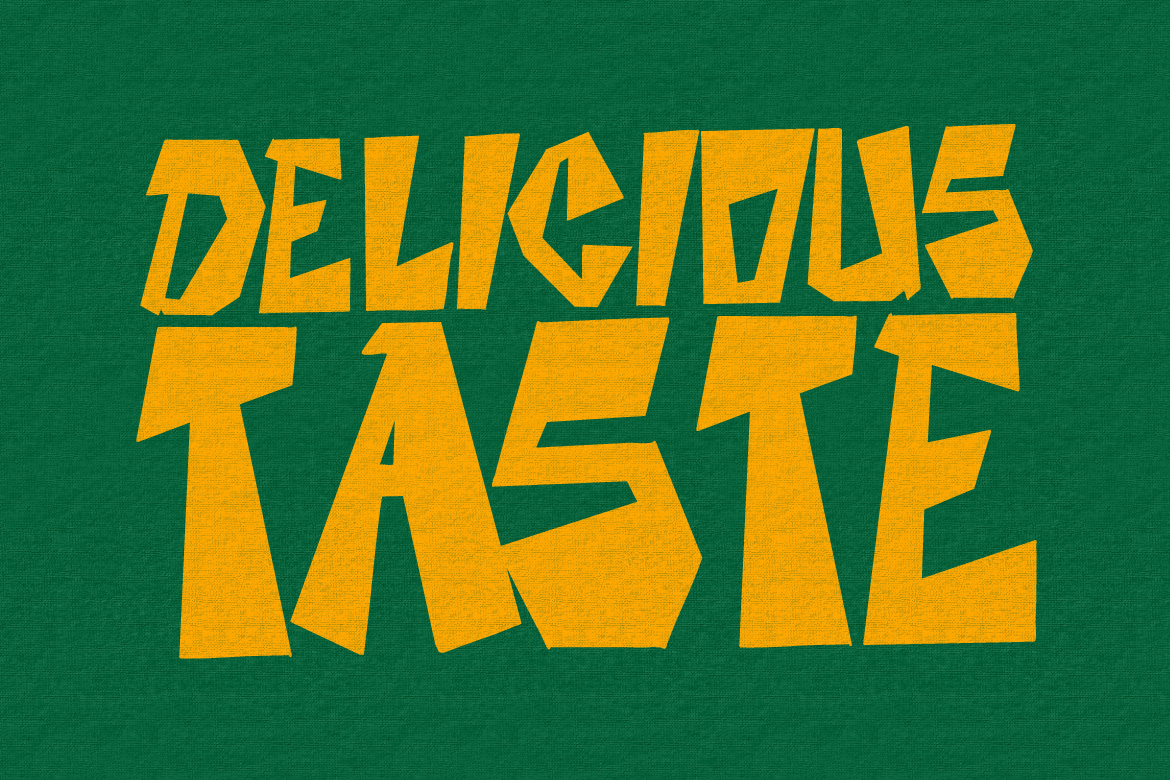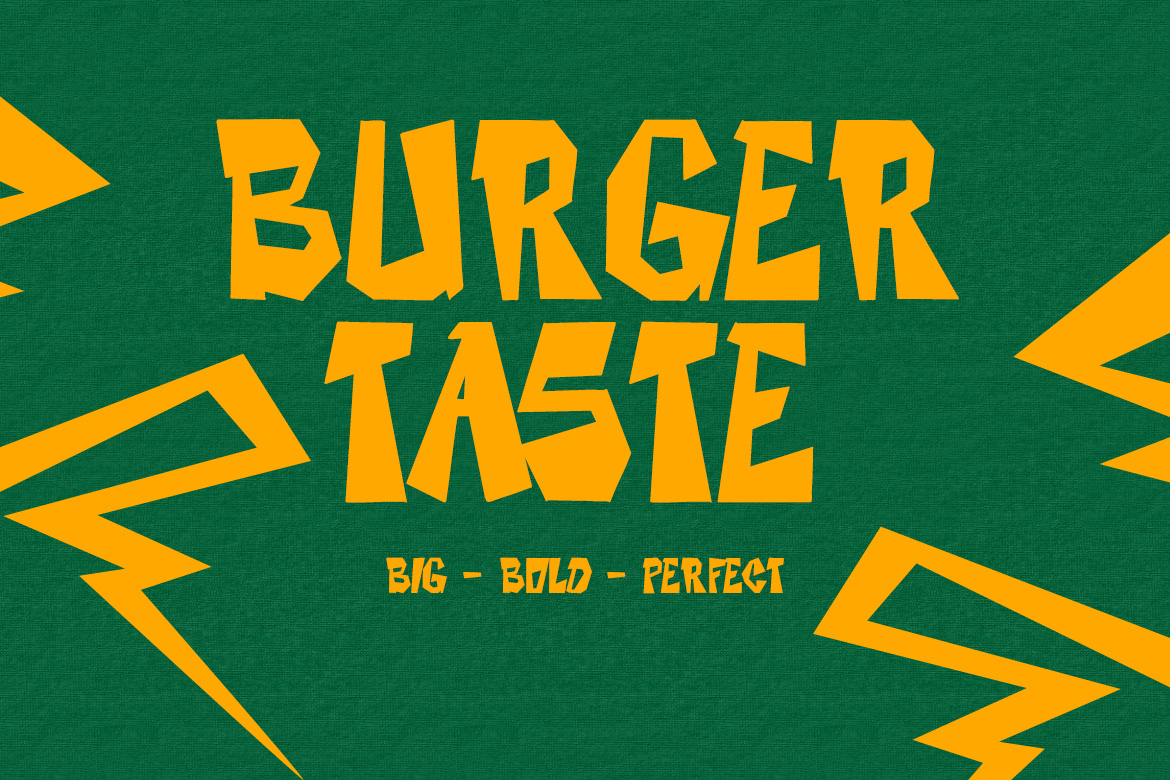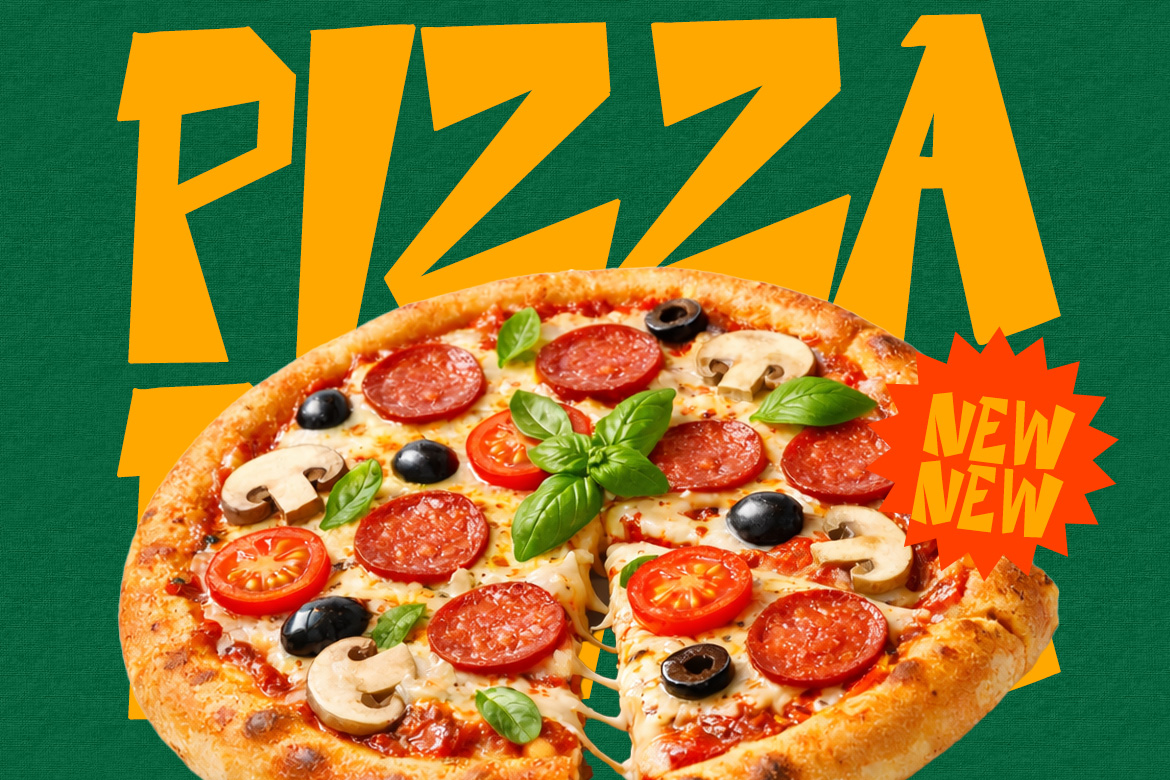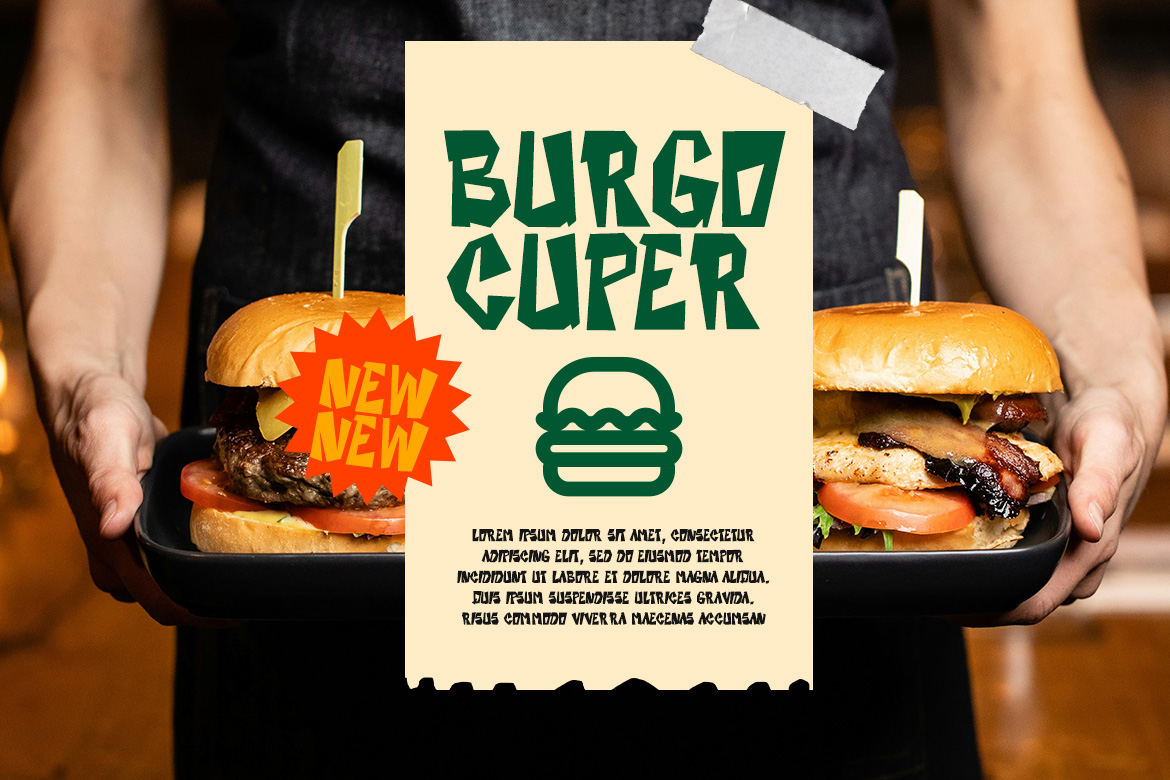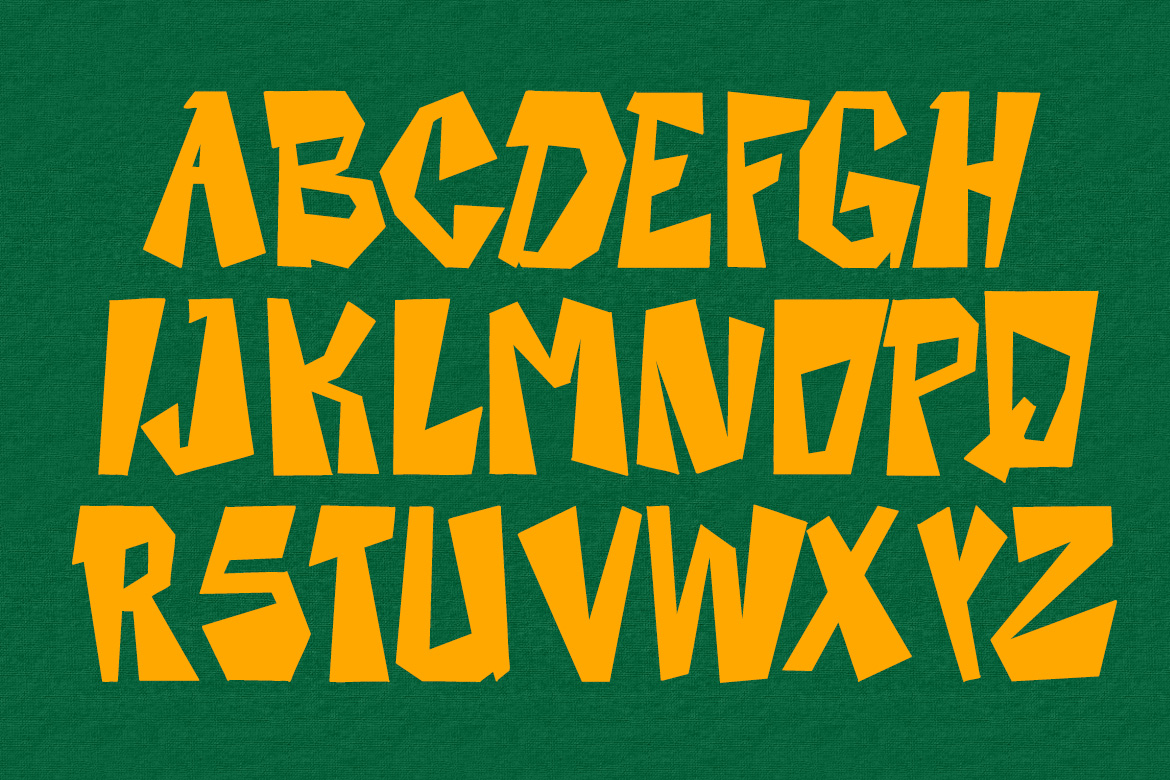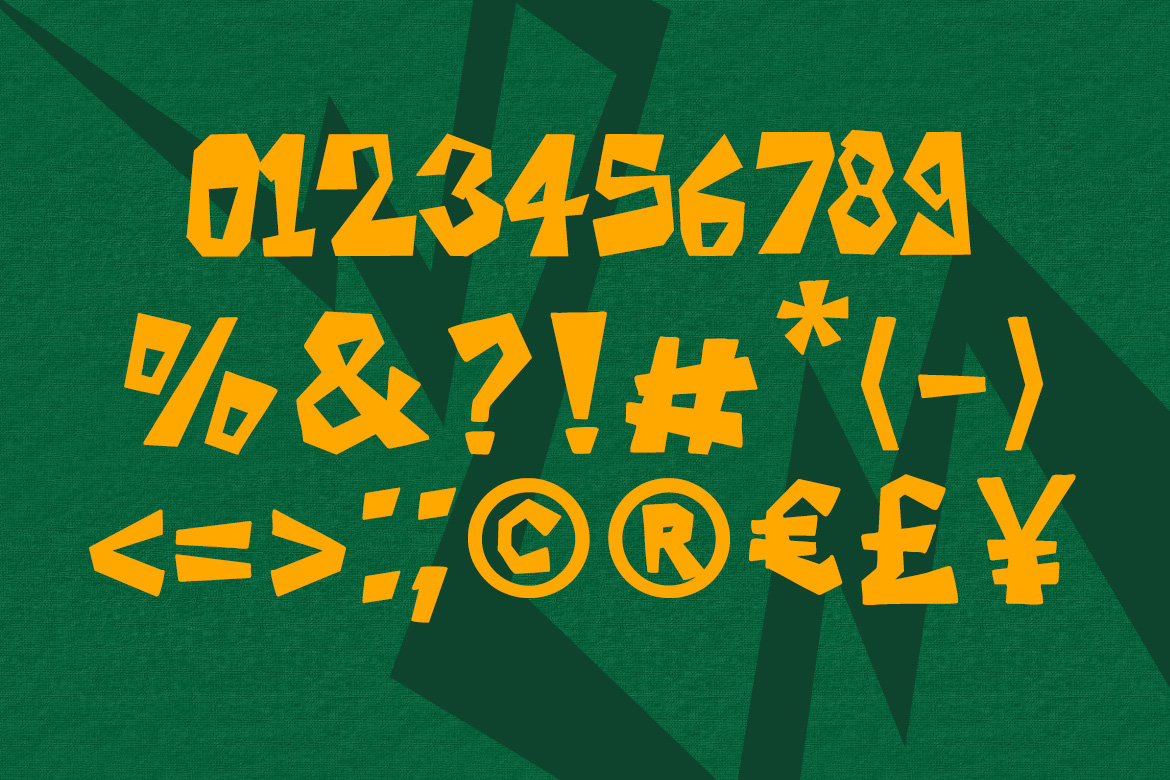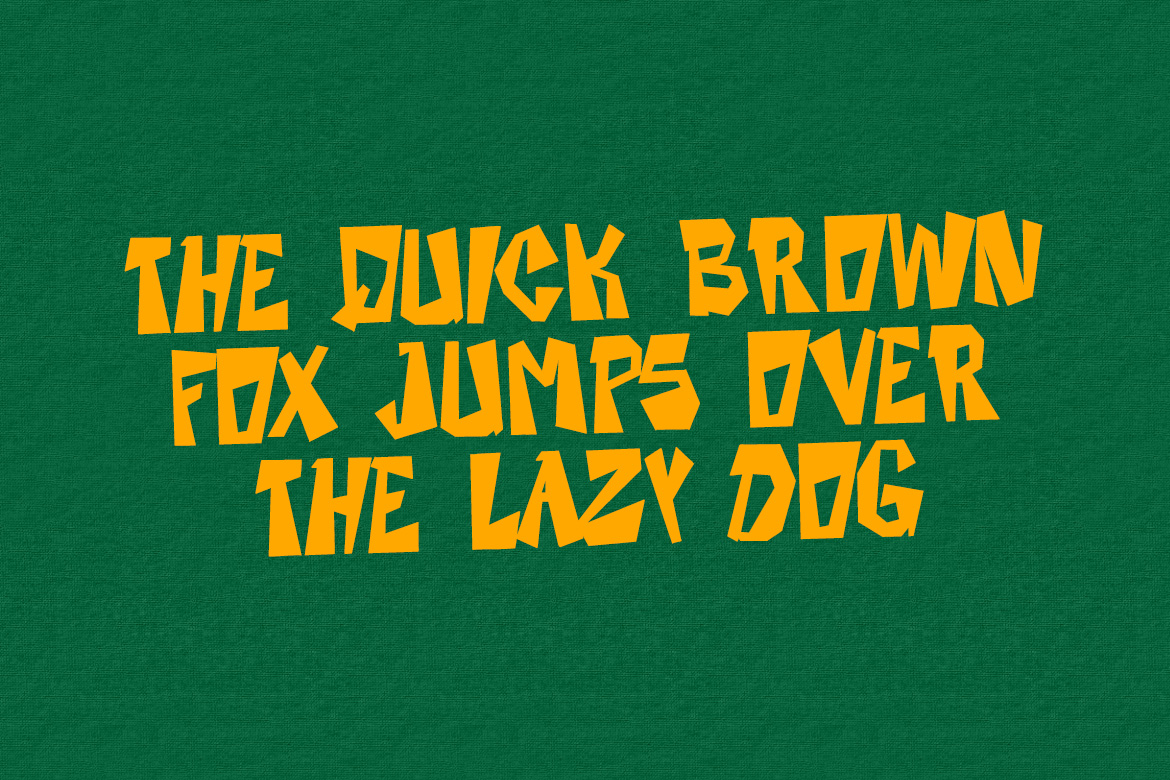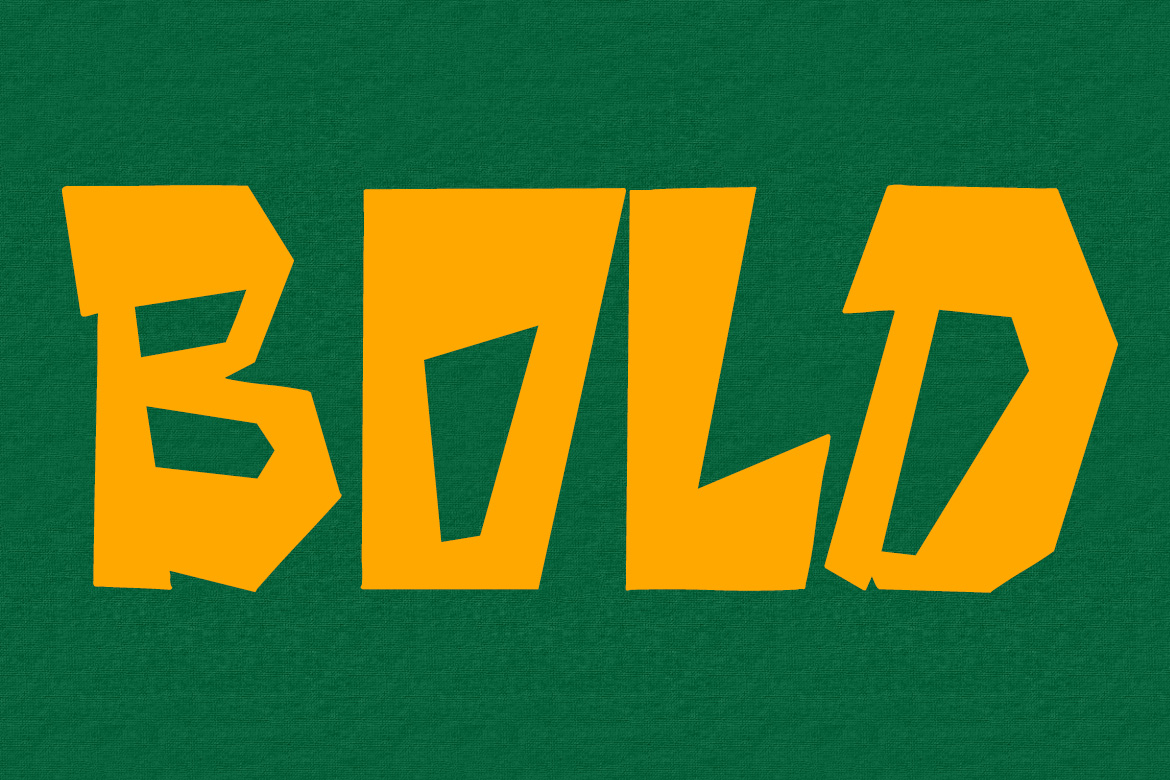
Stong Moca
This font features heavy, irregular letterforms with sharp, jagged edges that evoke a hand-cut or primitive aesthetic. The strokes are solid and thick, creating a high-impact visual weight. Each character has a unique, non-uniform shape, giving the typeface a playful and energetic vibe. It is ideal for bold headlines, posters, and creative branding projects that require a raw, expressive touch.